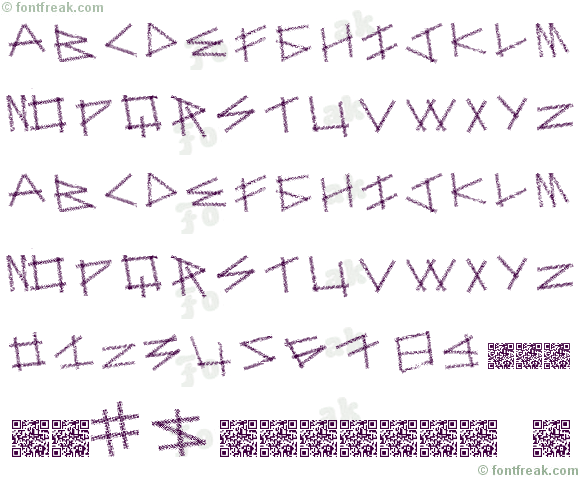
DotSticks
About DotSticks
DotSticks by Xerographer Fonts is a captivating display font that epitomizes creativity and whimsy. Released in 2013, this freeware font boasts a playful aesthetic characterized by its unique, hand-drawn appearance. The visual style is distinctly decorative, with irregular stroke weights that add a sense of movement and spontaneity. The letters are formed with lines that resemble dots and sticks, giving the font a charming, informal feel. This design choice enhances its legibility while allowing for artistic expression, making it a standout option for various applications.
DotSticks is particularly well-suited for projects that require a lighthearted touch. It shines in creative contexts such as children's book covers, playful branding for cafes, and vibrant event invitations. Additionally, it can be effectively used in social media graphics, where eye-catching designs are essential to engage audiences. Its quirky nature also makes it a great fit for posters and flyers that aim to attract attention and evoke a sense of fun.
The target audience for DotSticks includes graphic designers looking for unique typefaces, small business owners wanting to infuse personality into their branding, and content creators in need of distinctive typography for their projects. This font appeals to anyone who values creativity and seeks to stand out in a crowded visual landscape.
What sets DotSticks apart is its ability to convey a message of joy and creativity while remaining highly versatile. Its distinctive design elements invite users to experiment with typography in ways that traditional fonts may not allow. For those interested in exploring this unique style, the DotSticks font free download offers an exciting opportunity to enhance your projects with a touch of whimsy and individuality.